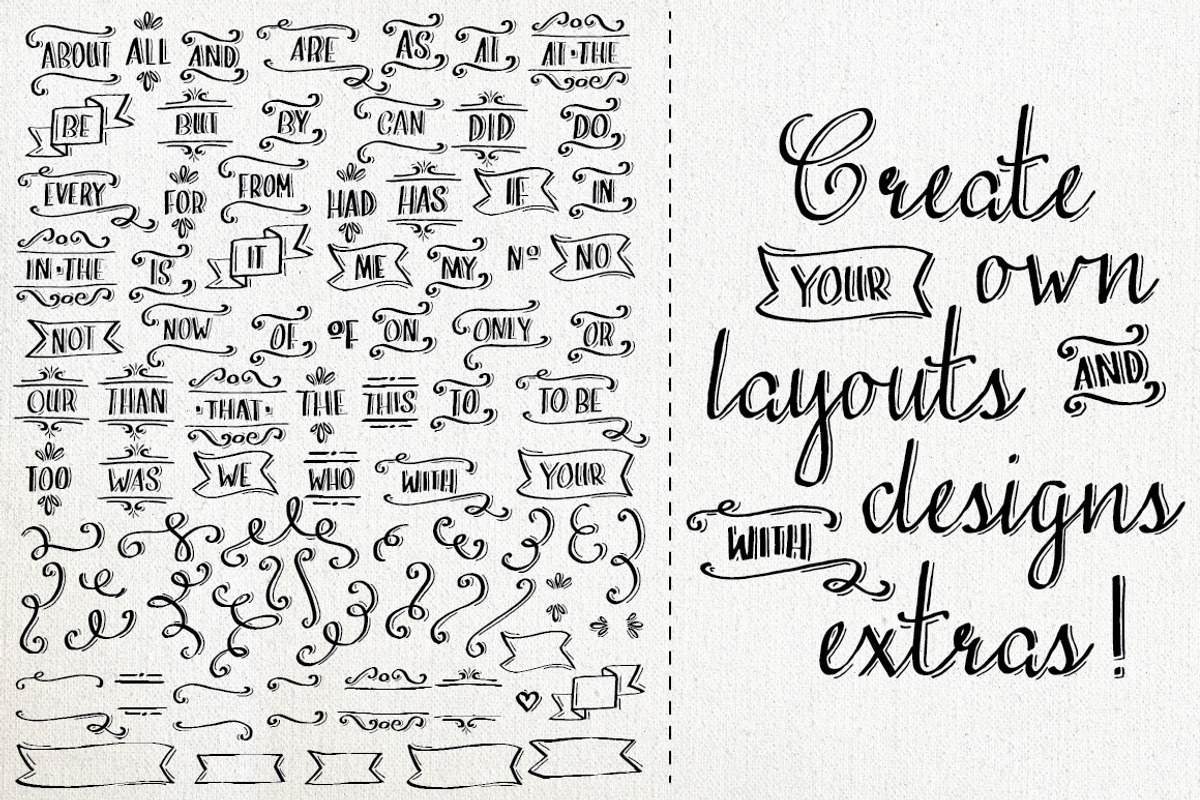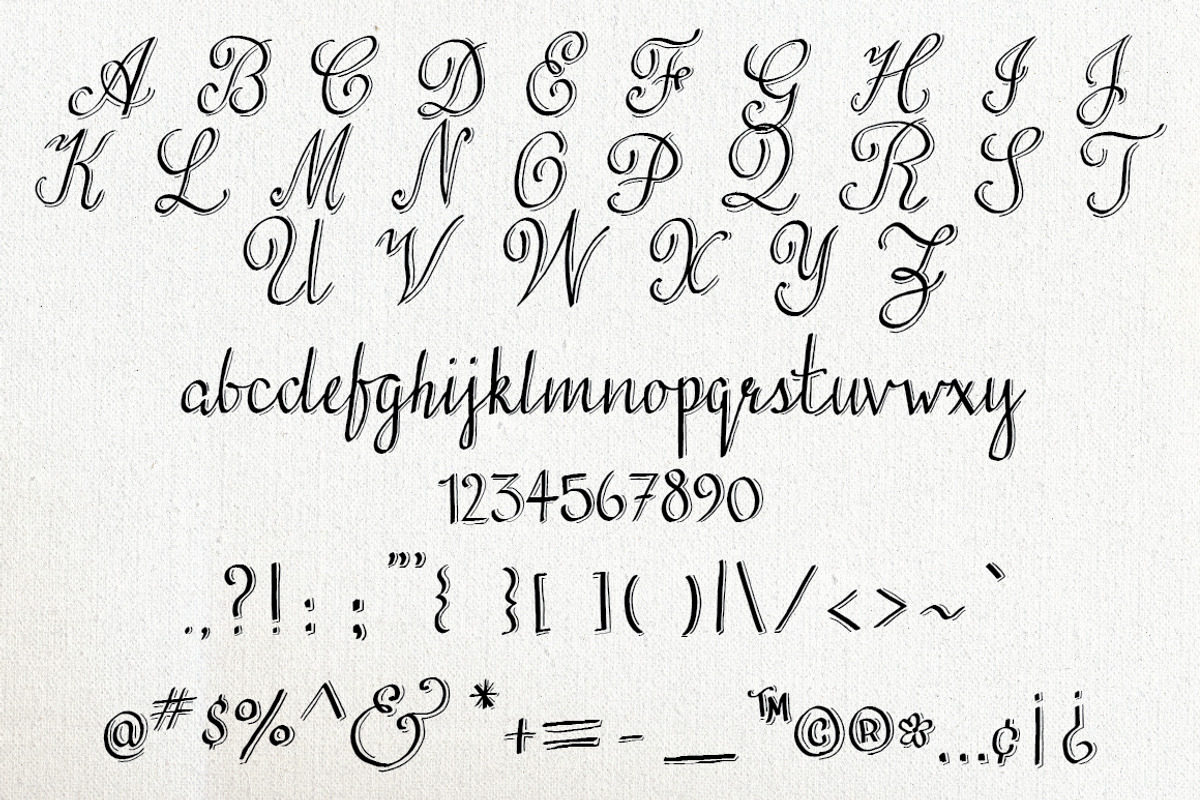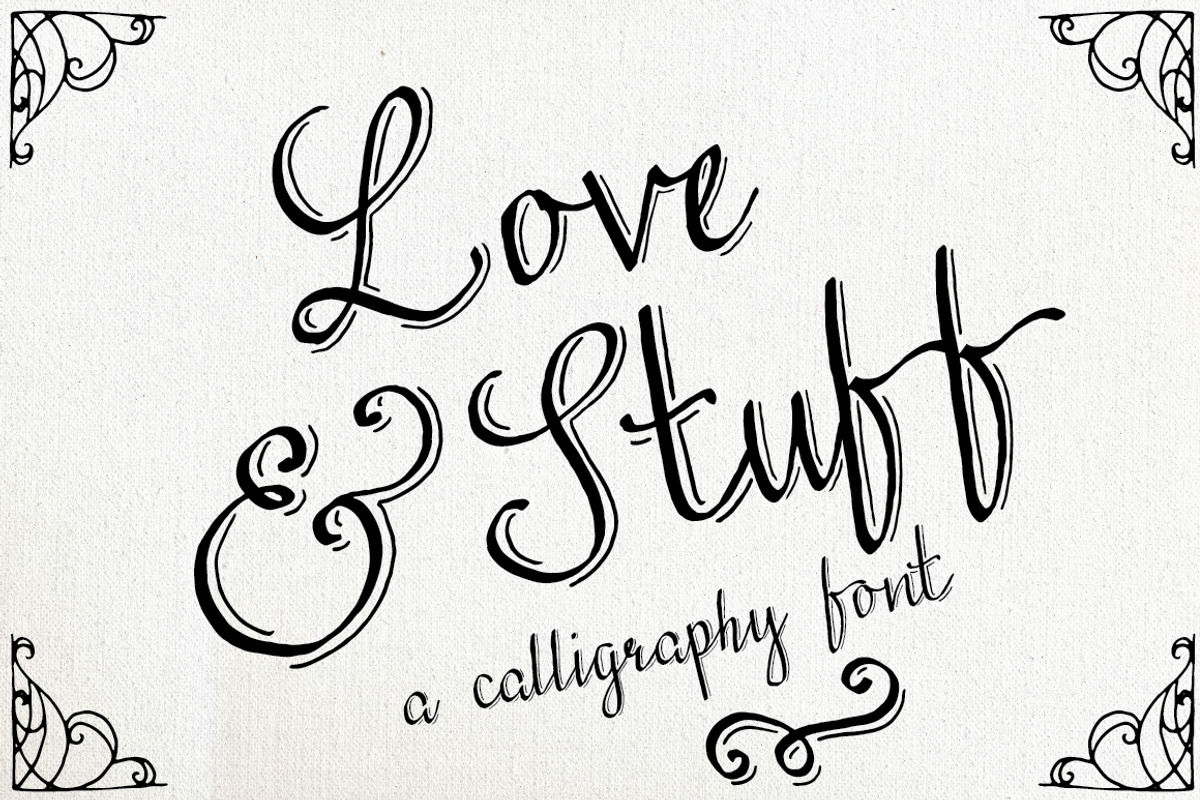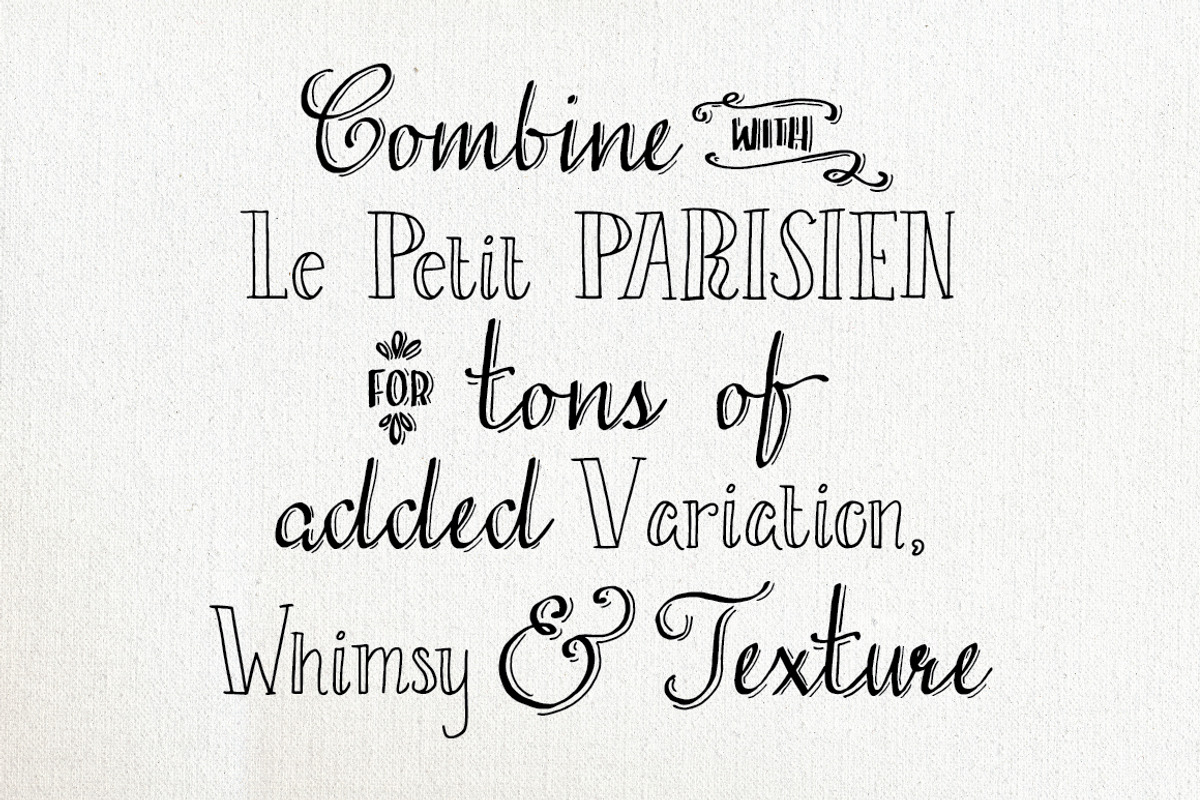
Love & Stuff - Calligraphy Font
Love & Stuff - Calligraphy Font by The Pen and Brush is a font selected for branding, posters, packaging, typography.
- This little beauty comes with a ton of stylistic extras, including catchwords (and, the, to, for, etc.), banners, swirls, and flourishes tha
Why Love & Stuff - Calligraphy Font is worth a look
Love & Stuff - Calligraphy Font by The Pen and Brush fits naturally into Branding, posters, packaging, typography.